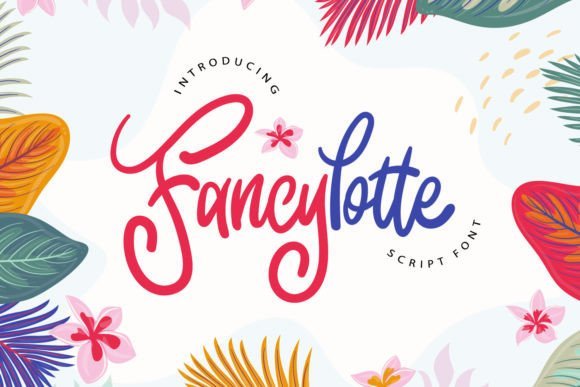
When Words Become Works of Art: Unveiling the Enchantment of Fancylotte Font
There’s something magical about creating a piece of art that touches the heart. Whether it’s a heartfelt letter to a loved one, a wedding invitation that sets the tone for a lifetime of love, or a social media post that celebrates a milestone, the right words can make all the difference. As designers, we know that the font we choose can elevate our message, evoke emotions, and leave a lasting impression.
Enter Fancylotte Font, a sweet and dainty handwritten script font that’s sure to add a touch of romance to your next project. With its versatility and PUA encoding, you’ll be able to access all the glyphs and ligatures with ease, making it the perfect addition to your design toolkit. Whether you’re a seasoned pro or just starting out, Fancylotte Font is a valuable asset that’s sure to bring your creative vision to life.
Fancylotte Font Key Features
- Font Family: Fancylotte Font is a unique, high-quality font family available in 4 different styles: Regular, Bold, Italic, and Bold Italic.
- Unique Characteristics: Fancylotte Font features elegant, flowing lines and subtle flair, making it perfect for creating visually appealing and sophisticated designs.
- Characters: The font includes a wide range of characters, including uppercase and lowercase letters, numbers, and punctuation marks, as well as accented characters and symbols.
Fancylotte Font Review
I recently had the chance to work with the Fancylotte font, and I must say it’s a unique addition to any design project. ✨ Here are some things that stood out to me:
- Playful charm**: The Fancylotte font has a whimsical feel to it, making it perfect for designs that need a touch of personality.
- Customization options**: The font offers a range of weights and styles, allowing you to customize it to fit your design needs.
- Legibility**: Despite its ornate appearance, the Fancylotte font is surprisingly legible, even at smaller font sizes.
- Limited language support**: The Fancylotte font may not be suitable for designs that require support for multiple languages, as it’s primarily designed for English text.
- Not ideal for body text**: Due to its ornate nature, the Fancylotte font may not be the best choice for large blocks of text, as it can be tiring to read.
Overall, I think the Fancylotte font is a great addition to any designer’s toolkit, but it’s essential to use it judiciously. With its playful charm and customization options, it’s perfect for titles, headings, and other design elements where you want to add a touch of personality. Just be mindful of its limitations, and you’ll be all set.
Getting the Most Out of Fancylotte Font
Here are some tips for getting the most out of Fancylotte Font:
- Use Fancylotte Font in combination with other fonts to create a unique and eye-catching design.
- Pay attention to the font’s ligatures and letter spacing to ensure a polished look.
Fancylotte Font is well-suited for a variety of design projects, including:
Alternatives to Fancylotte Font
The Great Vibes Font is a modern script font that is perfect for creating a fun and energetic vibe. It is ideal for use in titles, headings, and quotes. When to use: Fashion magazines, advertisements, and social media posts.
Comparison to Fancylotte Font: Great Vibes Font has a more playful and casual feel compared to the elegant and sophisticated Fancylotte Font.
The Carolyna Pro Font is a elegant and luxurious script font that is perfect for creating a high-end and sophisticated look. It is ideal for use in titles, headings, and body text. When to use: Luxury brands, high-end fashion magazines, and premium websites.